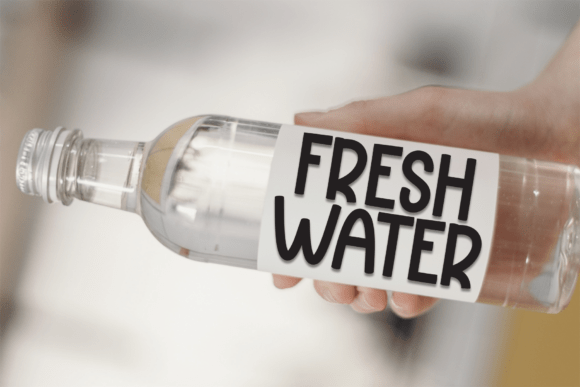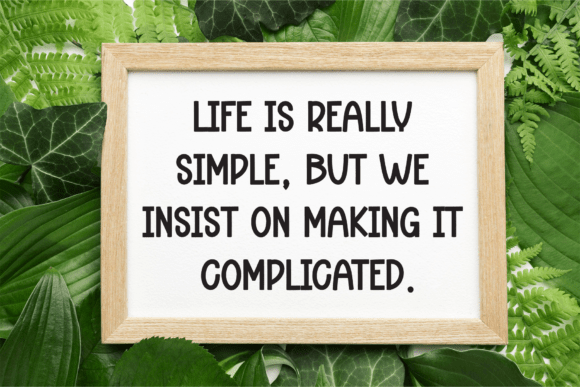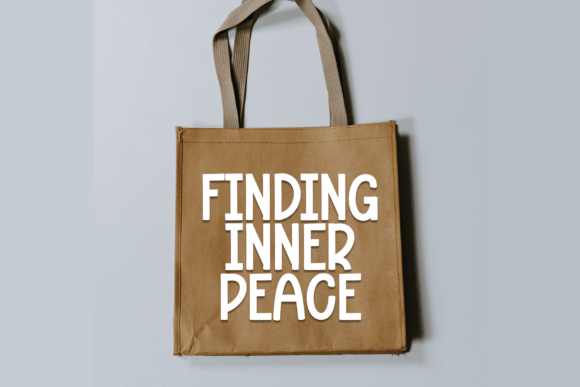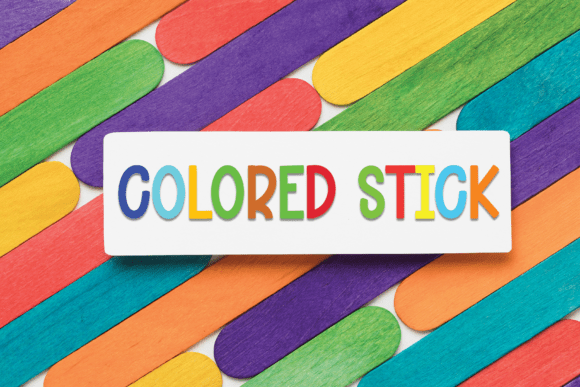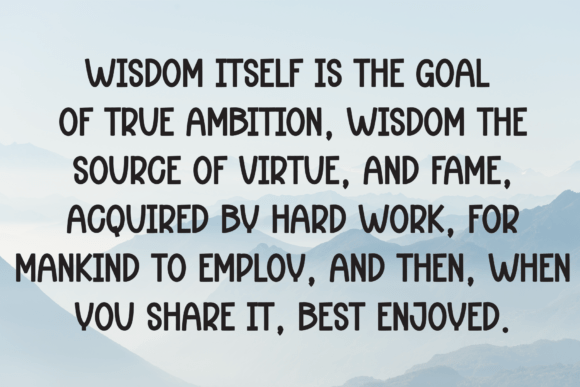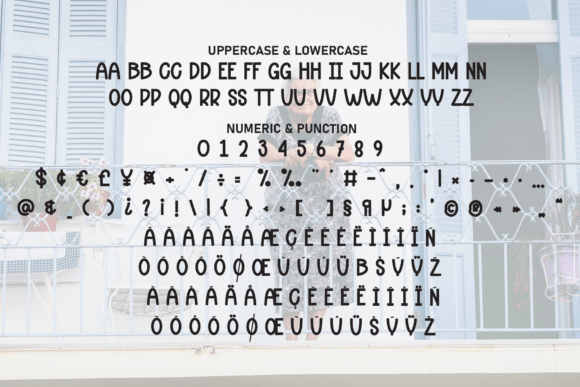
Introduction to House Grandma Font
Introducing a charmingly playful and delightfully friendly handwriting display font that Jazzes up your creative projects with a spark of fun.
This adorable font is the perfect match for crafting wedding invites, greeting cards, or any design craving a pinch of joy It effortlessly turns the mundane into something delightful and heartfelt.
Key Features of House Grandma Font